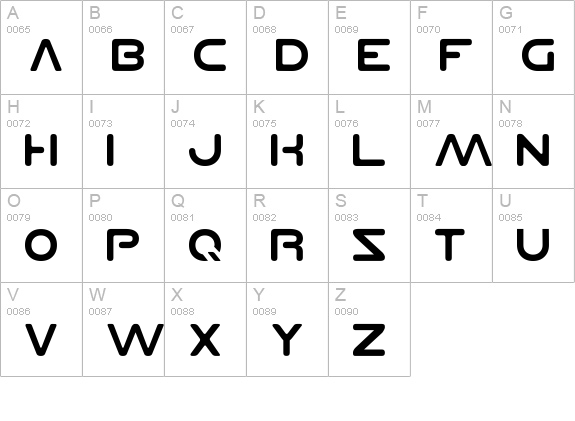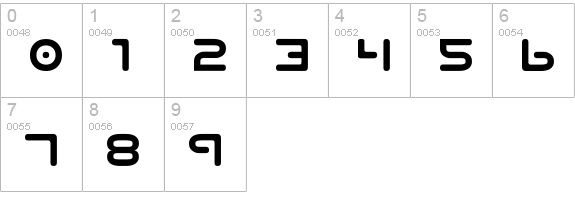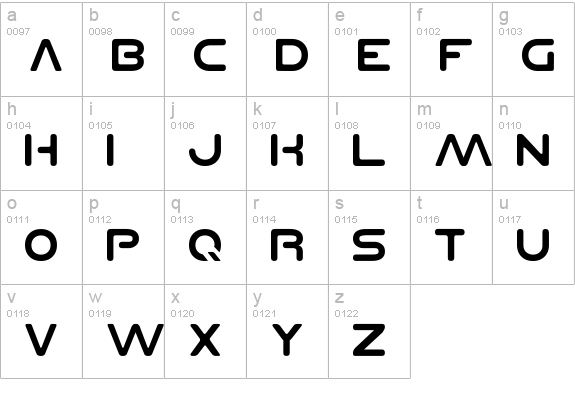
Planet N Font Details
Introducing Planet N, a stunning and versatile font that will transport your design projects to a whole new dimension! With its unique and futuristic style, this font is perfect for capturing attention and making a bold statement. Its sleek lines and impeccable letterforms effortlessly blend modernity with a touch of sophistication. Planet N is not just visually captivating; it also offers incredible functionality. With a wide range of weights and styles, you have the freedom to experiment and create a variety of captivating designs from logos to headlines, posters to branding, and everything in between. Its legibility remains intact regardless of the size or context, ensuring that your message is always clear and impactful. What makes Planet N even more remarkable is that it is freely available to download at FontsMarket.com. Yes, you read that right – this exceptional font can be yours without any cost. Say goodbye to licensing fees and restrictions, and say hello to the freedom of creativity. Whether you are a professional designer or an aspiring artist, Planet N offers an unparalleled opportunity to bring your visions to life without breaking the bank. So why wait? Experience the beauty and versatility of Planet N today. Download it for free at FontsMarket.com and let your imagination take flight. With Planet N, the possibilities are endless, and the only limit is your creativity.